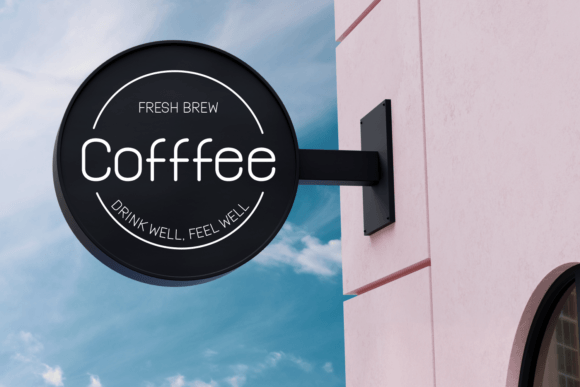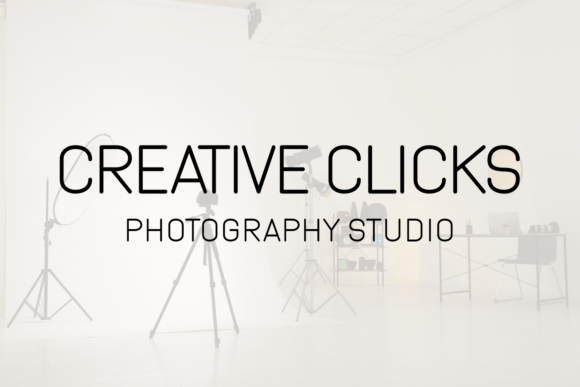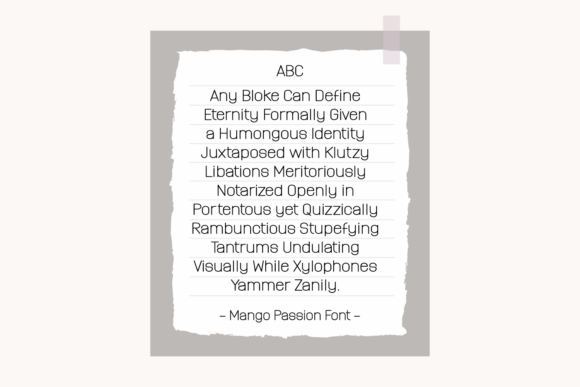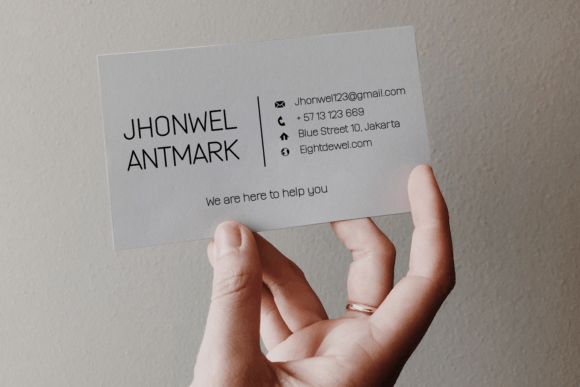
Introduction to Mango Passion Font
Mango Passion is a new Sans Serif font.
Designed with simplicity at its core, this basic font effortlessly exudes class and luxury, making it a popular choice for modern professionals Crafted meticulously for the digital era.
Key Features of Mango Passion Font